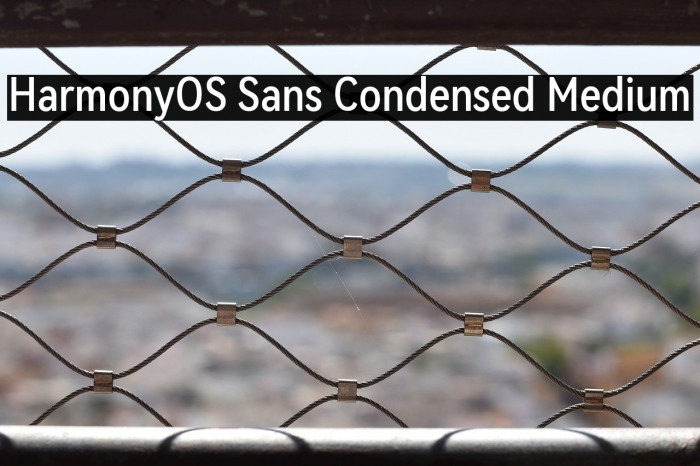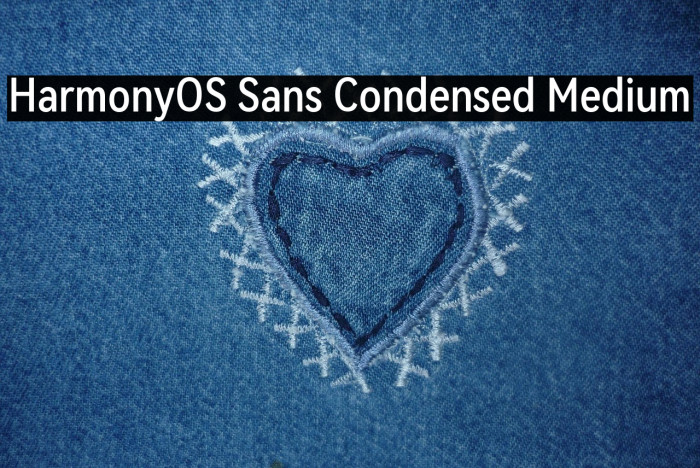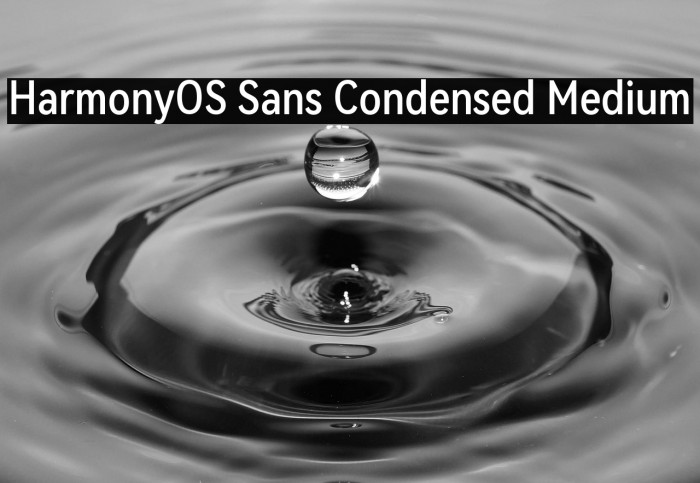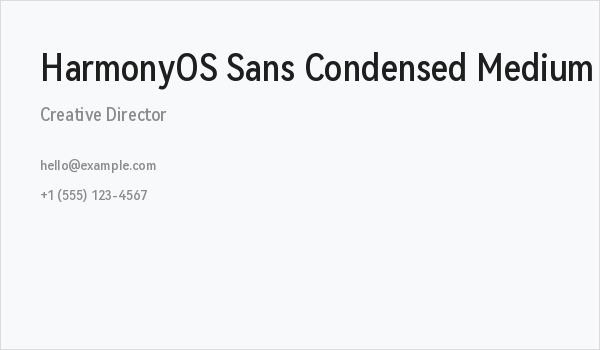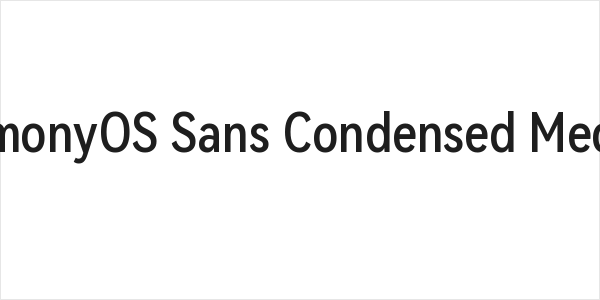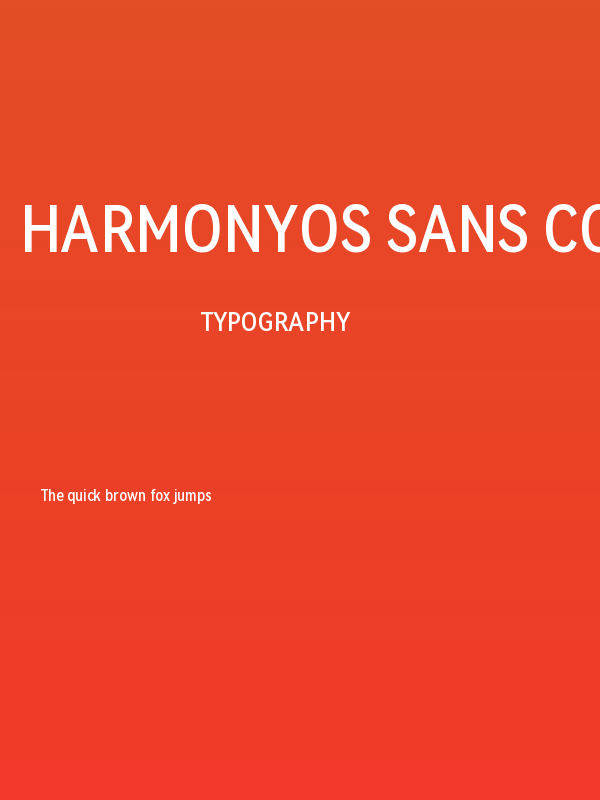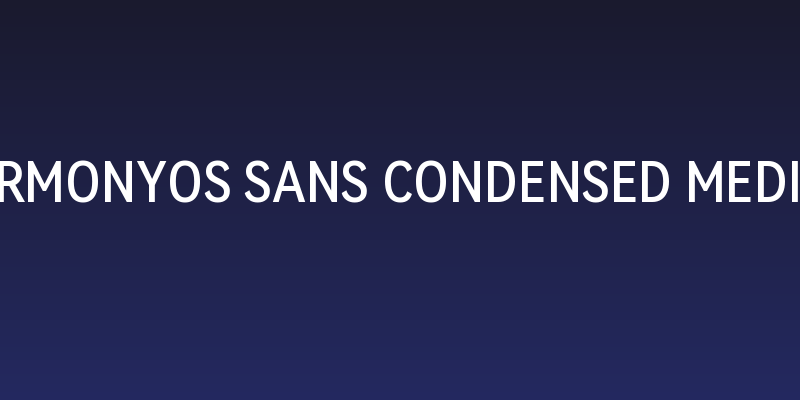
HarmonyOS Sans Condensed Medium Font
HarmonyOS Sans Condensed Medium Description
This font features a clean and modern sans-serif design with a condensed structure, making it highly efficient for space-saving applications. The characters are well-balanced with uniform stroke widths, providing a harmonious and legible appearance. The uppercase and lowercase letters maintain a consistent height ratio, enhancing readability. The numerals are clear and distinct, while the special characters are designed to complement the overall style. This font is versatile, suitable for both digital and print media, and excels in conveying a contemporary and professional tone.